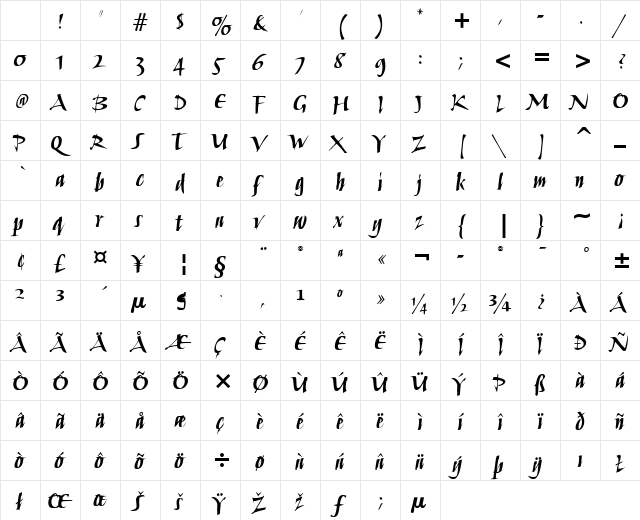
Complete !the troubles Regular glyph index. Displaying only characters natively supported by !the troubles Regular font.
!the troubles is a composed and adaptable typeface that performs quietly and consistently across a wide range of design contexts.
Who designed the !the troubles Regular font?